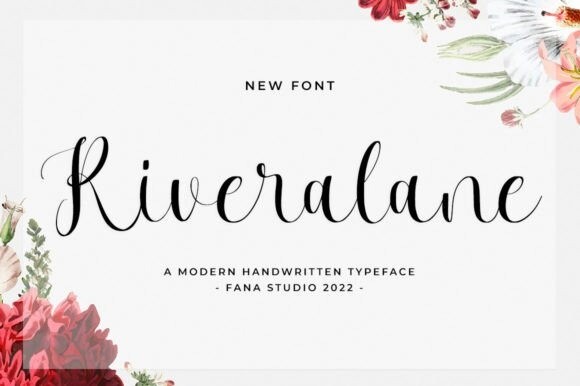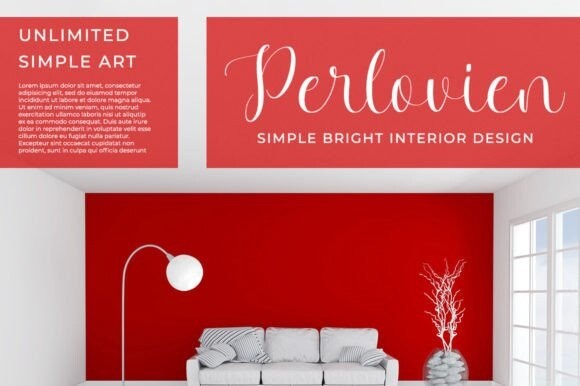
Riveralane Font
Introducing Riveralane Script, a stylish Font Style. This beautiful script font offers your personal touch to your latest art project with an elegant, classy, and modern look.
The Riveralane Script offers gorgeous typographic perfect for many different projects such as logos & branding, invitations, stationery, wedding designs, social media posts, advertisements, product packaging, product designs, labels, photography, watermarks, special events, or anything that needs handwriting taste.